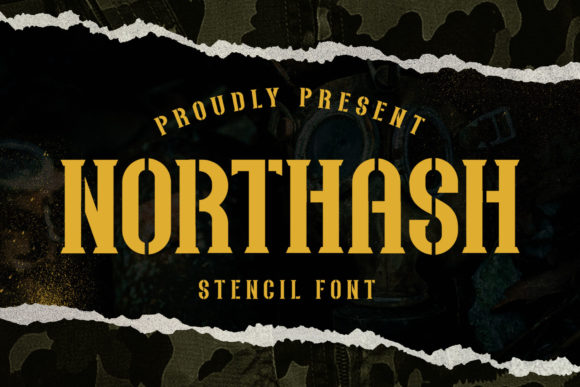
Welcome to the world of Northas Font, the perfect solution for all your display needs! Created by the talented Arterfak Project, this vintage stencil font is inspired by old-school signs and military design, making it an ideal choice for those who want to evoke a sense of adventure and nostalgia in their designs.
Are you looking for the best font for outdoor banners? Look no further than Northas! Its bold and distinctive appearance is sure to catch the eye and make your message stand out. And with its PUA encoding, accessing all of the glyphs and swashes is a breeze.
But Northas is much more than just a font for banners. Its versatility means it can be used for a wide range of themes, from sports and military to urban and wildlife. Its unique style is perfect for adding a touch of vintage charm to any project.
What sets Northas apart from other display fonts is its attention to detail. Every character has been carefully crafted to ensure that it is both functional and aesthetically pleasing. And with its wide range of glyphs and swashes, you can create truly unique designs that are sure to impress.